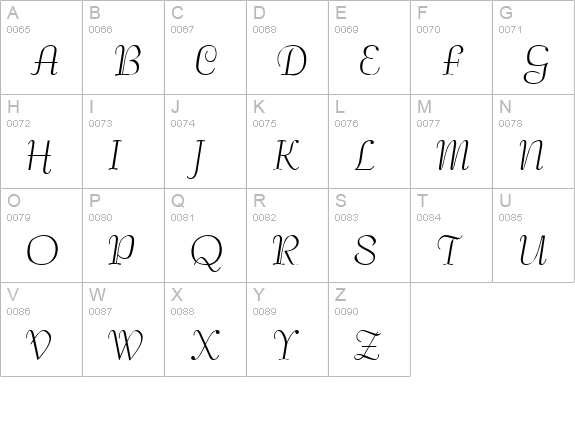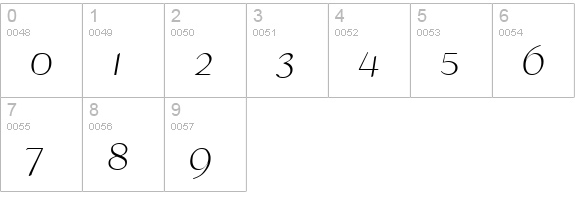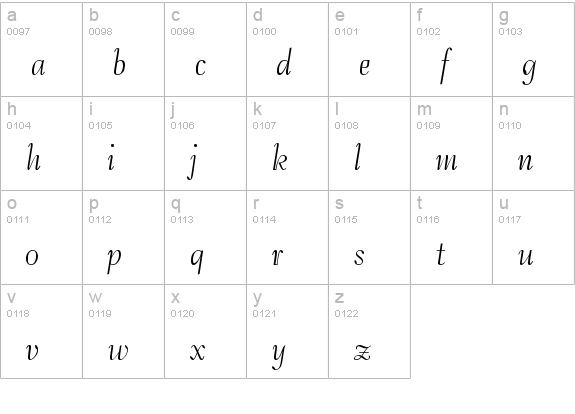
Felicitas Font Details
Felicitas font is a versatile and elegant typeface that exudes sophistication and style. With its unique curves and clean lines, Felicitas is perfect for a wide range of design projects, from branding to editorial design. This font is free to use and is available for download at FontsMarket.com, making it accessible to designers of all levels. Whether you are working on a logo, website, or print materials, Felicitas font will add a touch of class and professionalism to your work. Its timeless appeal and modern aesthetic make it a must-have font in your design toolkit.